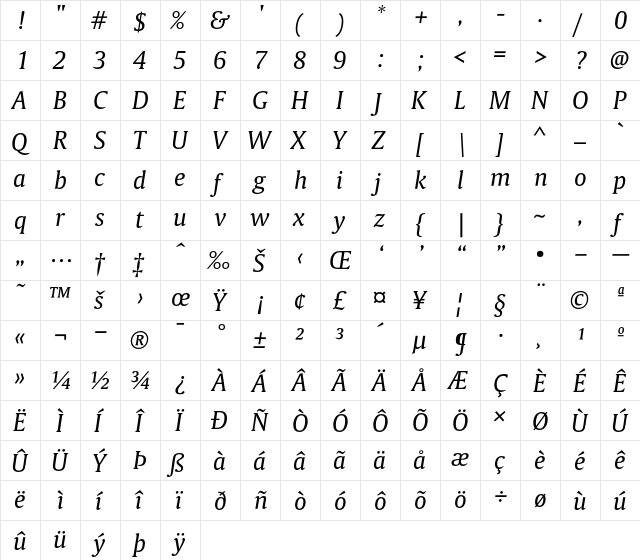
Gulliver Italic Regular
Design Context for Gulliver Italic Typeface
Gulliver Italic takes a measured approach to typography — its balanced proportions and neutral character make it a reliable workhorse for both digital and print work. The slanted form adds forward momentum and visual energy.
Pro Tip: Try Gulliver Italic for annotation and caption copy alongside an upright companion — the contrast in angle creates a dynamic but ordered typographic system.